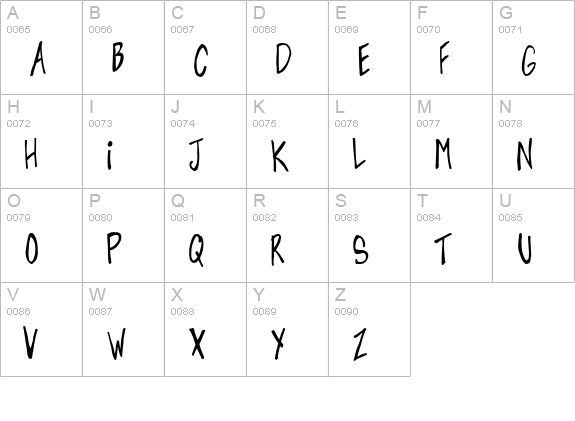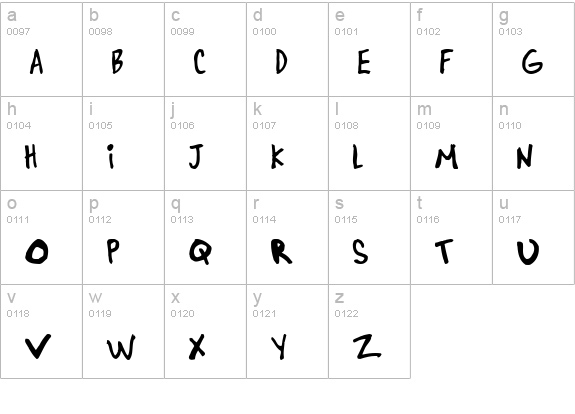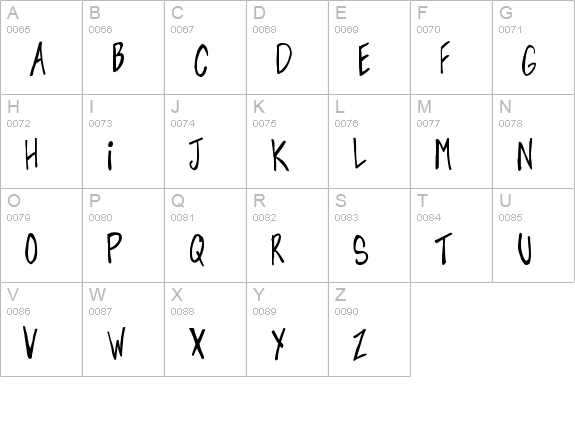
Punker Font Details
Introducing Punker font, a rebellious and energetic typeface that brings a raw and edgy vibe to your designs. With its bold strokes and jagged edges, Punker font exudes a sense of attitude and individuality, perfect for making a statement in your branding, posters, and more. This font captures the essence of punk rock culture, with a modern twist that is sure to stand out. Best of all, Punker font is available for free download at FontsMarket.com, making it easily accessible for all your creative projects. Whether you're looking to add a touch of punk flair or simply want to inject some boldness into your designs, Punker font is the perfect choice. Download it today and unleash your rebellious spirit!